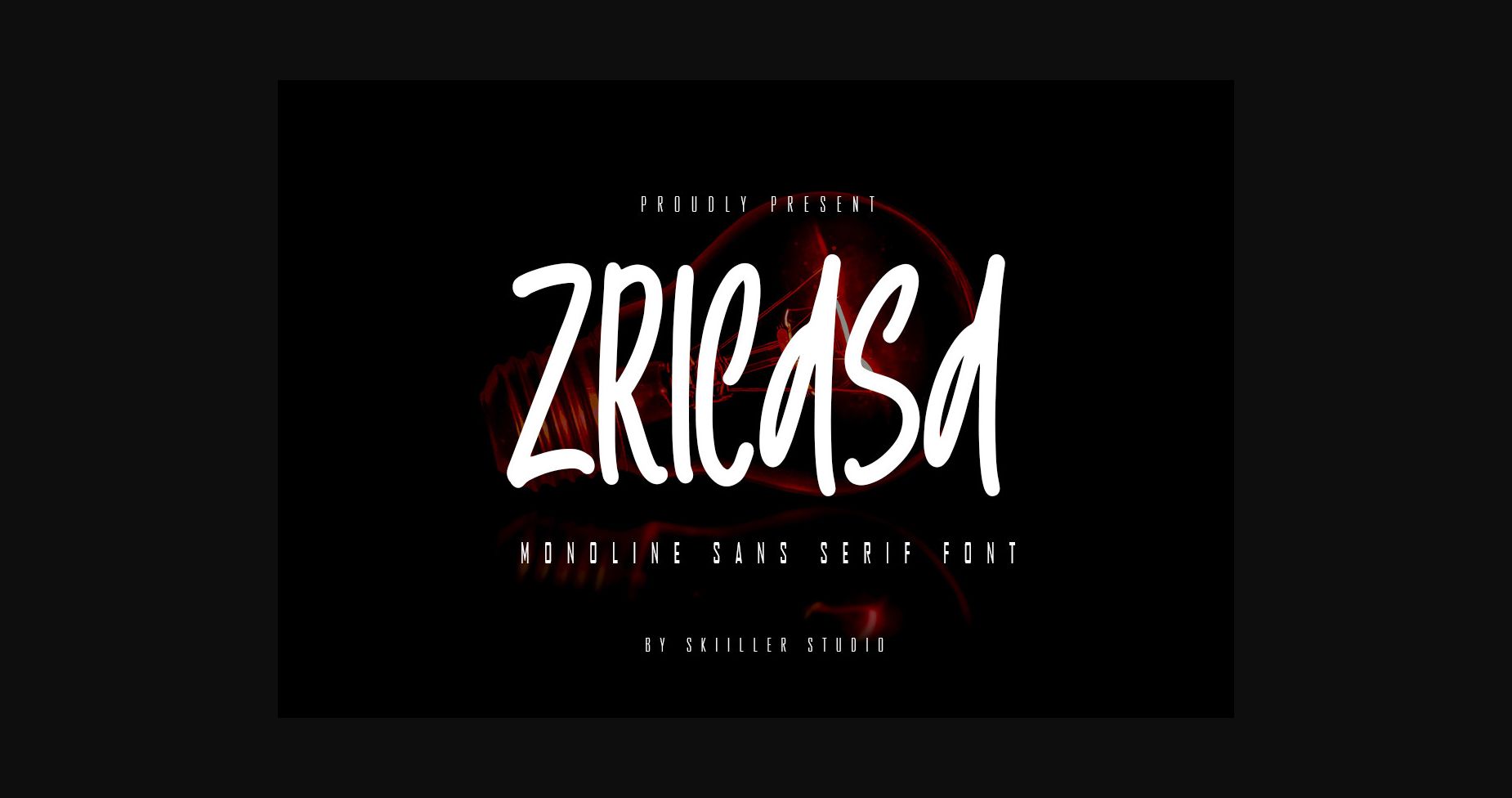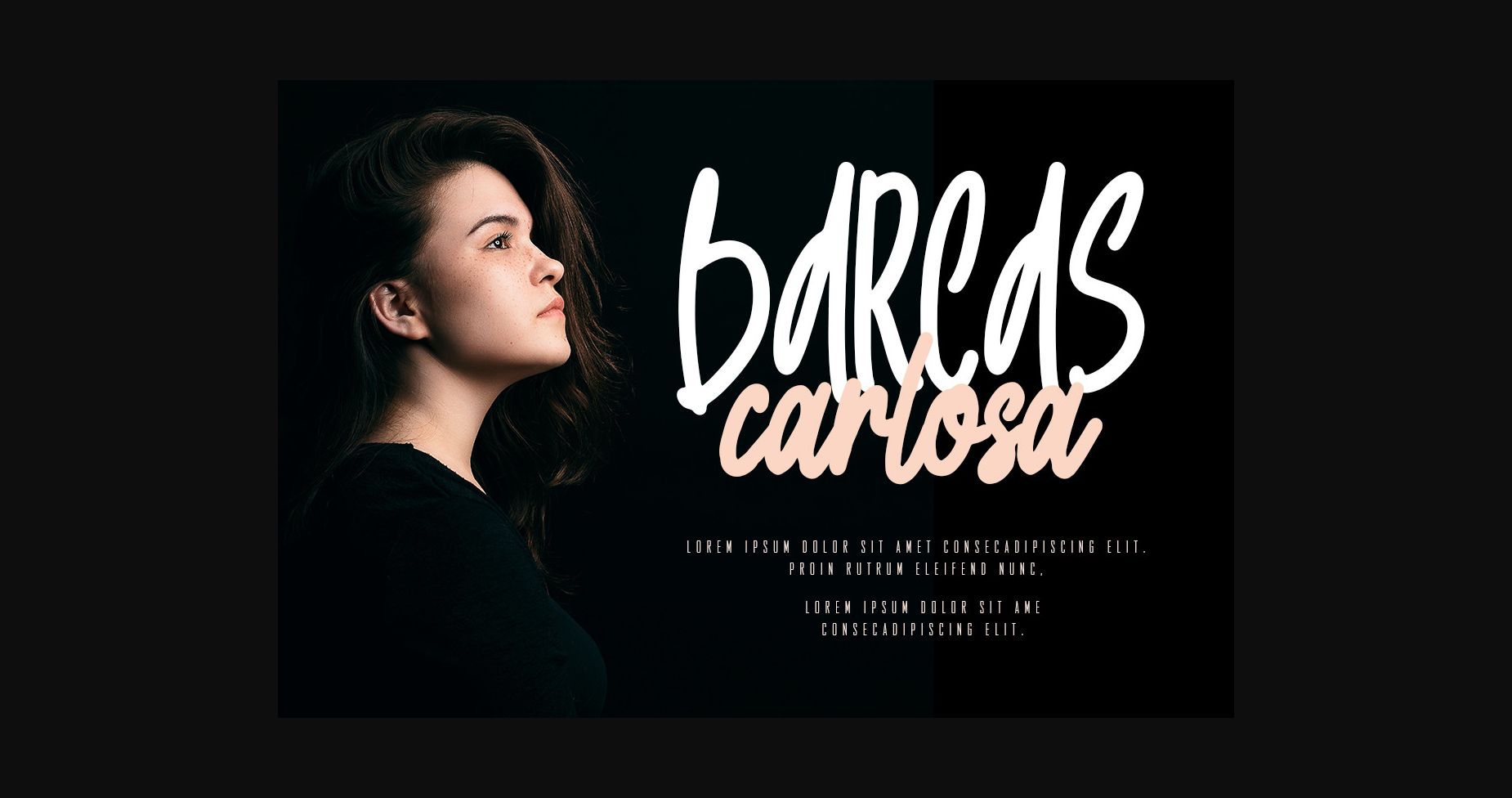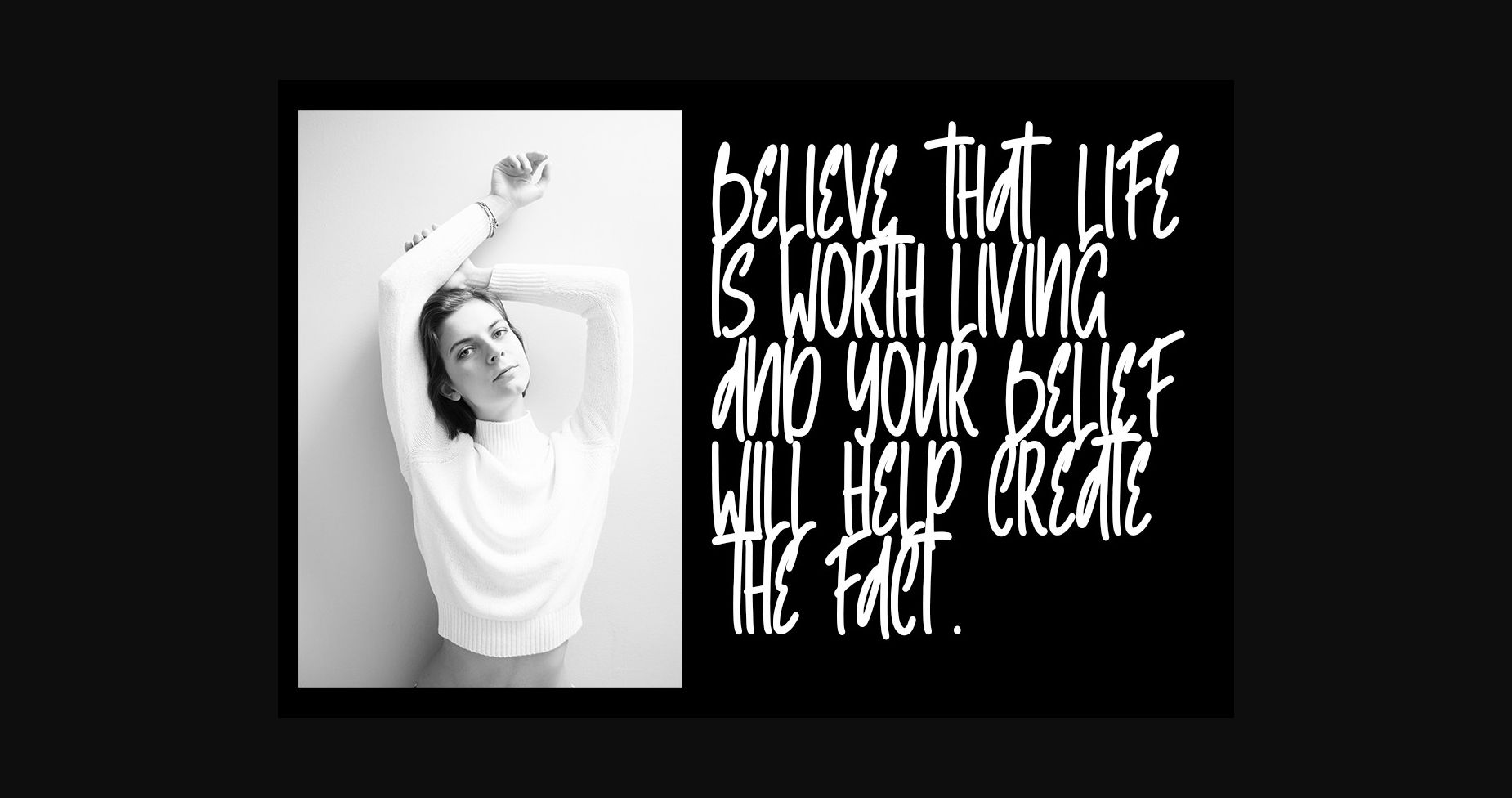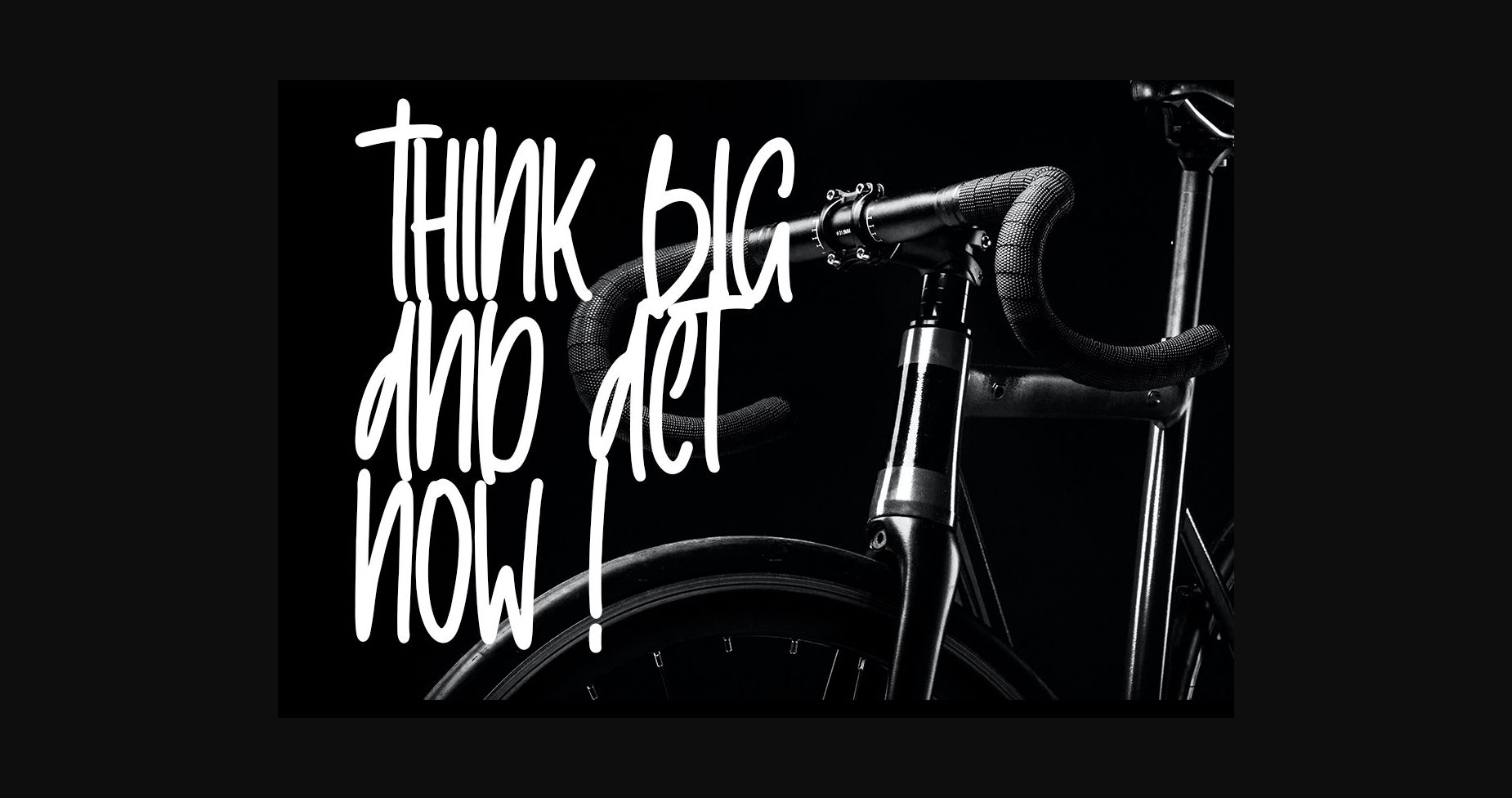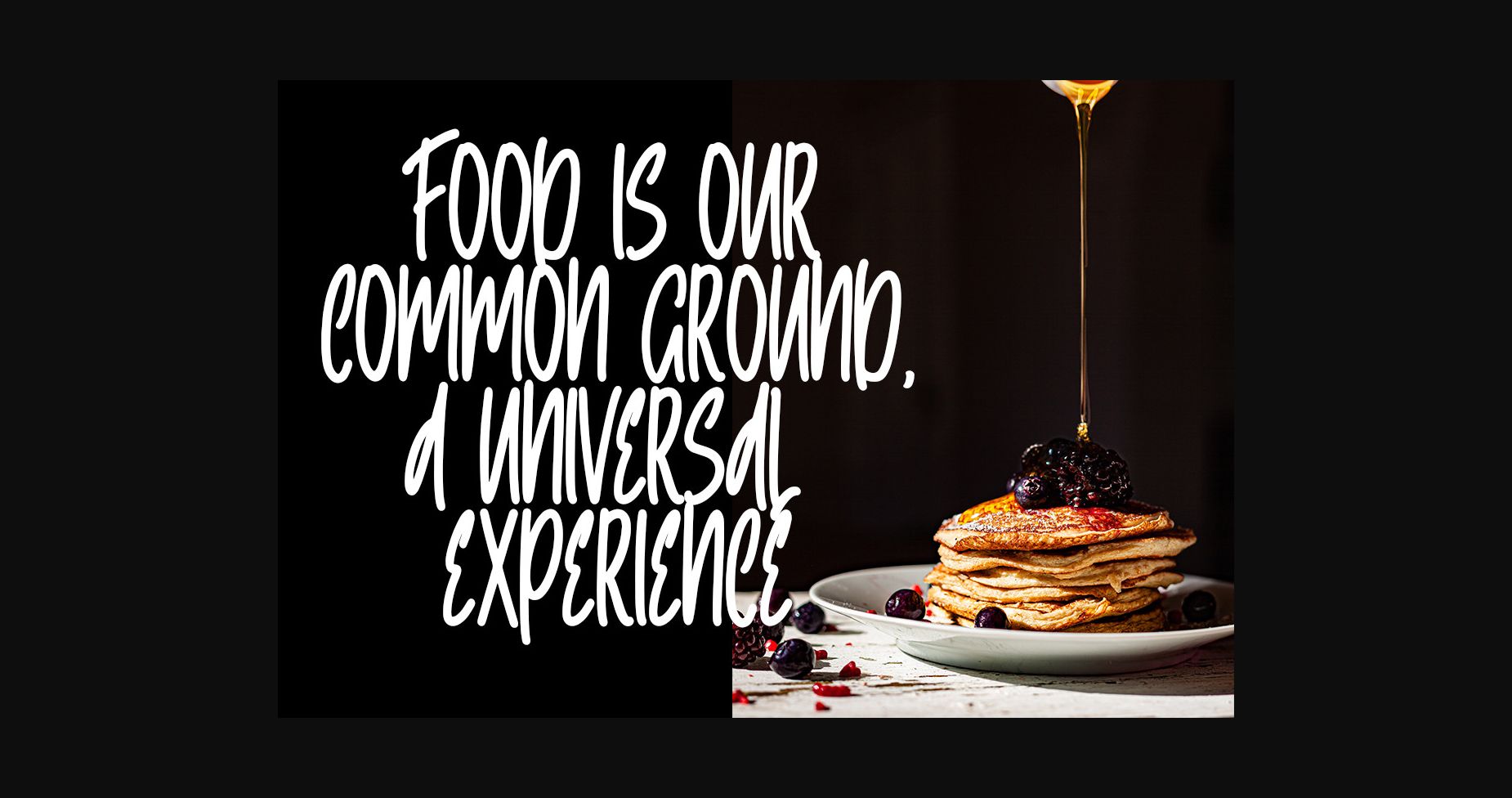
About Zricasa Font
Zricasa is a monoline and playful font, crafted to give your headlines and logotype projects a stylish touch. This font reads as strong, confident, and dynamic and can add tons of urban character to your designs.